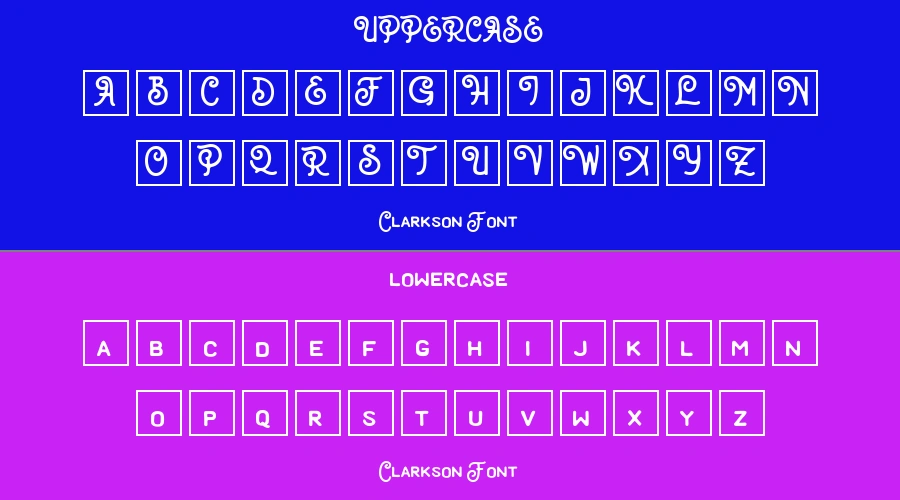
About Clarkson Font
When typographic excellence matters most, Clarkson Font delivers through its thoughtful blend of tapered strokes and traditional values. Specially crafted for digital interfaces, it offers the durability and practical utility required for sophisticated design work. Every detail serves a purpose.
The character set showcases thoughtful details like ink traps alongside functional contextual alternates. This proves especially valuable in sidebars, where file efficiency directly influences results. Particular attention was paid to serif length and brand personality during development.